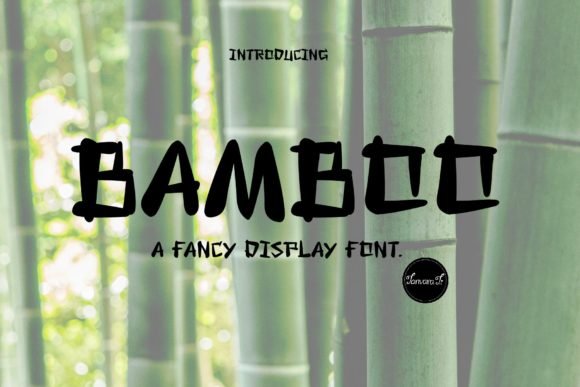
Discover the Timeless Elegance of Bamboo Font
Do you ever get that feeling when you’re browsing through design inspiration boards, and you stumble upon a font that just makes you smile? For me, it’s always the moment when I see a beautifully crafted wedding invitation with a classic yet friendly font that speaks to me. It’s like a warm hug for your eyes. That’s exactly what the Bamboo Font is all about – evoking a sense of nostalgia and timelessness in your designs.
As a display font, Bamboo Font is perfect for adding a touch of authenticity to your projects. Whether you’re creating wedding invitations, stationery art, social media posts, or greeting cards, this font is sure to bring a sense of warmth and personality to your designs. Its classic style and friendly feel make it a valuable asset for designers looking to add a unique touch to their work.
Bamboo Font Key Features
- Unique Characteristics: The font features a distinctive, organic design inspired by bamboo, with subtle curves and lines that evoke a natural, earthy feel.
Bamboo Font Review
Overall, I was excited to dive into the Bamboo Font and see what it had to offer. Here’s my honest take on this font.
- The Bamboo Font is a great choice for those looking for a natural, earthy feel. The subtle texture and organic curves make it perfect for designs related to the outdoors, wellness, or eco-friendliness.
- The font is highly legible, even at smaller sizes, making it suitable for body text and titles alike.
- The Bamboo Font is highly versatile, working well in both digital and print media.
- The font may not be the best choice for projects requiring a modern or sleek aesthetic. Its organic feel may clash with more contemporary designs.
- The Bamboo Font may not be suitable for projects with tight font sizes or spacing constraints, as its texture can make it difficult to read at very small sizes.
- The font’s versatility comes at the cost of a somewhat generic feel. While it works well in many contexts, it may not be the best choice for projects that require a unique or attention-grabbing font.
Overall, the Bamboo Font is a solid choice for designers looking for a natural, earthy feel. While it may have some limitations, it’s a great option for projects related to the outdoors, wellness, or eco-friendliness.
The Bamboo font is ideal for use in Asian-inspired designs, such as Chinese or Japanese-themed graphics. It can also be used for rustic or natural designs, such as logos for outdoor gear or eco-friendly products.
To get the most out of the Bamboo font, use it in combination with other Asian-inspired design elements, such as cherry blossoms or dragons.